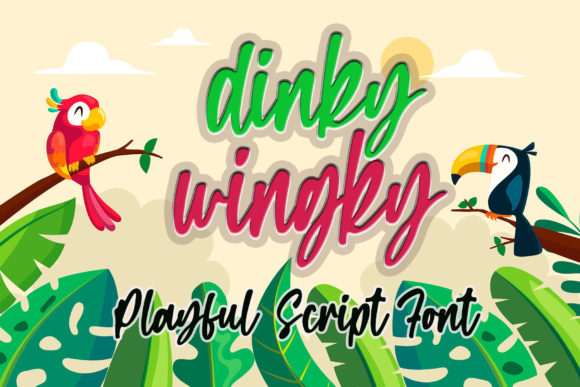
Behold, Dinky Winky Font – the ultimate expression of creativity and charm, where elegance meets playfulness! This enchanting script font, crafted by the masterminds at Projectype, will transform your designs into captivating masterpieces.
Dinky Winky's alluring characters dance across the baseline, exuding a sense of joy and whimsy. Its unique style brings life to your most imaginative ideas, making them shine brighter than ever before.
Imagine the magic you can create with this font! Adorn your social media posts with eye-catching quotes that leap off the screen. Craft stunning logos that speak volumes about your brand's playful spirit. Design eye-popping posters that captivate audiences with their sheer charm. The possibilities are endless!
Dinky Winky Font is not just a collection of letters; it's an invitation to embark on a creative journey. Its captivating curves and playful strokes will ignite your imagination, urging you to explore new horizons of design. So, embrace the magic of Dinky Winky and let your creativity soar!